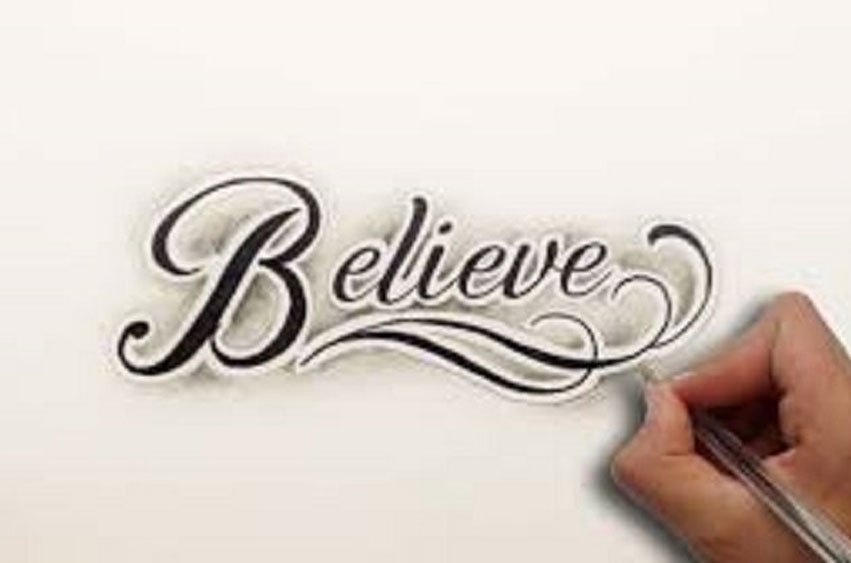
Believe Font is suitable for flyers, posters, novels, letterheads, or any design requirements you want to be awesome.
It will certainly amaze your readers.